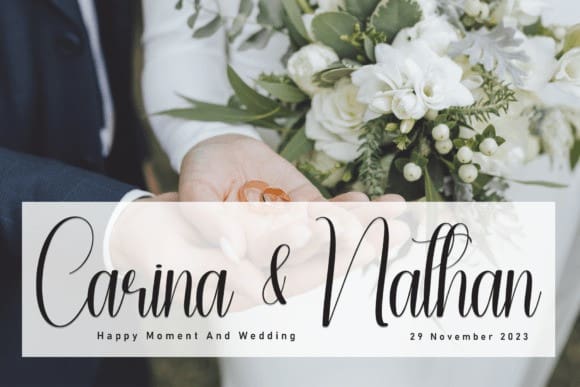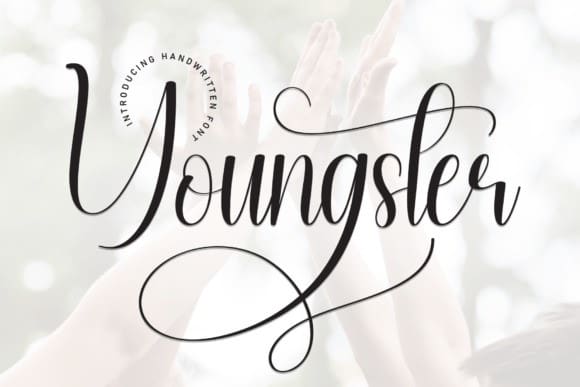
Youngster Font
Youngster Font is a flowing handwritten font, described by an elegant touch, perfect for your favorite projects. Fall in love with its incredibly distinct and timeless style and use it to create spectacular designs!